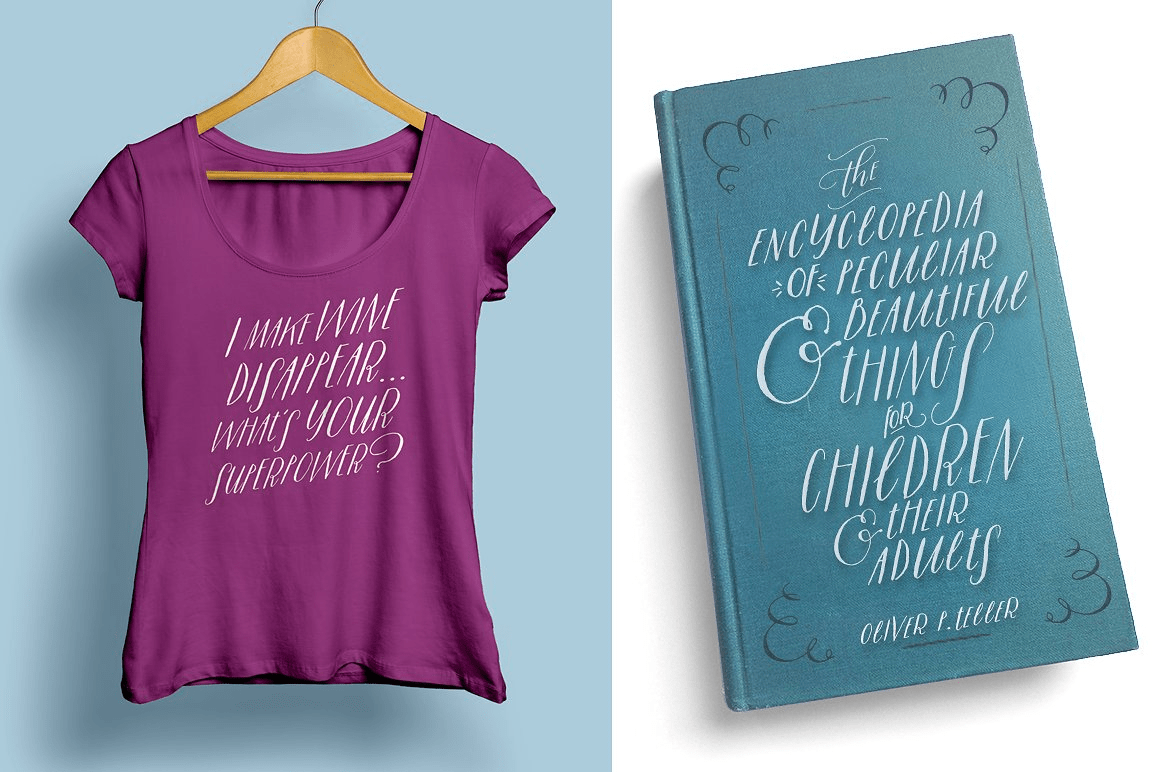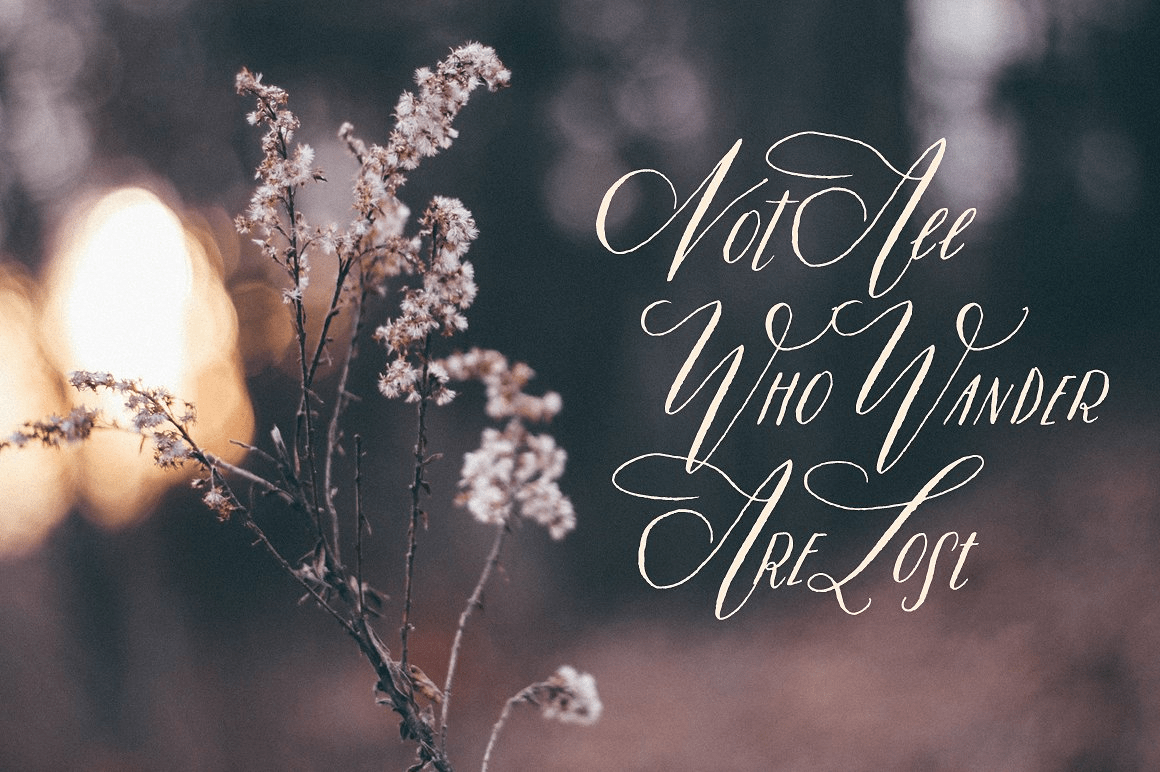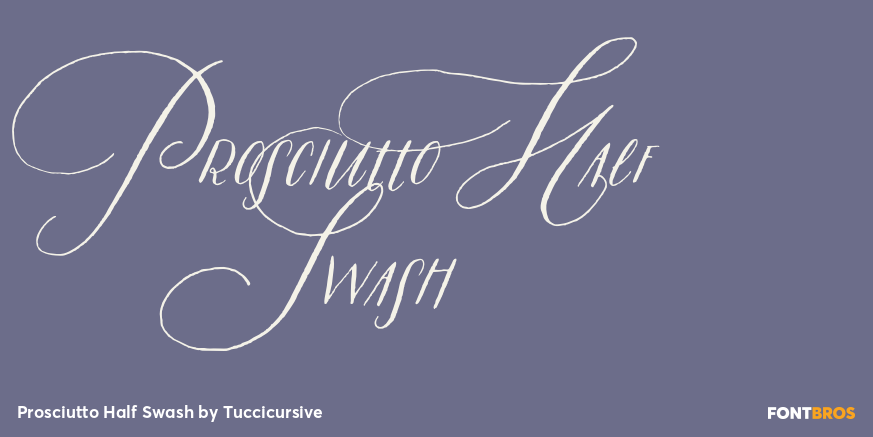
Prosciutto
Font Family by Tuccicursive
Prosciutto is a completely handlettered typeface that just like the Italian cured ham itself, is a buttery mix of salty and sweet forms. Prosciutto combines modern script and primitive printing that makes its own kind of modern day folk movement.
This typeface has so many combinations available almost making a completely new style every time you combine the three different fonts. There is also a set of over 50 extras that add a touch of organic spontaneous hand drawn flourish to your designs.
I have always used art and letters to describe my world, and am so happy to bring that work into the digital realm. For me, there is a definitive spiritual connection between a person and their handwriting. It's almost as moving as a photo of them, possibly, even more so. I'm so excited to share Prosciutto with you and can't wait to see what you come up with!